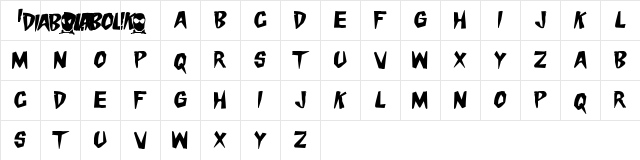
Danger Diabolik Regular Free Font
Danger Diabolik Regular
Foundry: P. A. Vannucci
Designer: P. A. Vannucci
Year: 2012
Design Context for Danger Diabolik
Danger Diabolik is a composed and adaptable typeface that performs quietly and consistently across a wide range of design contexts.
Who designed the Danger Diabolik Regular font?